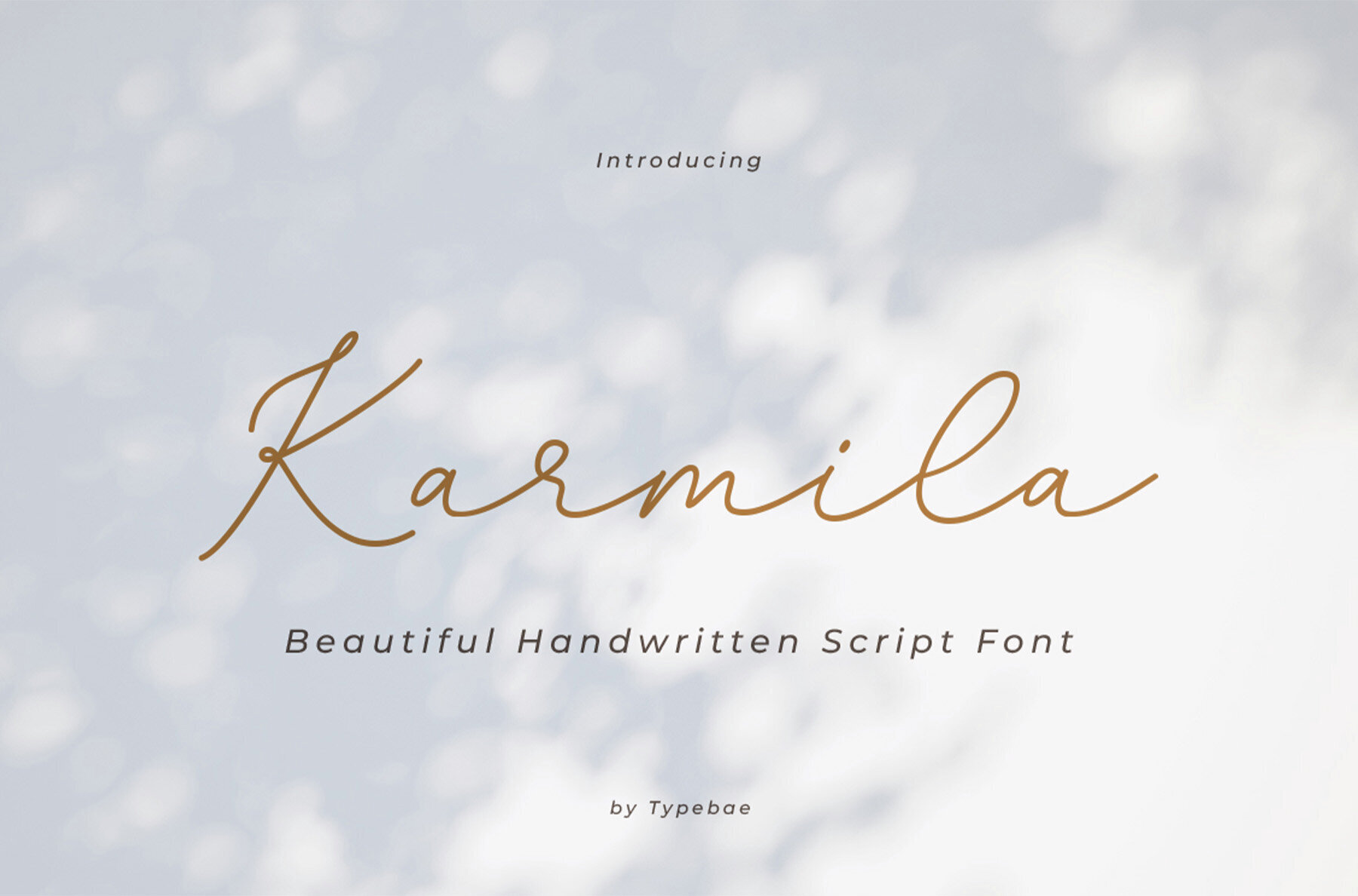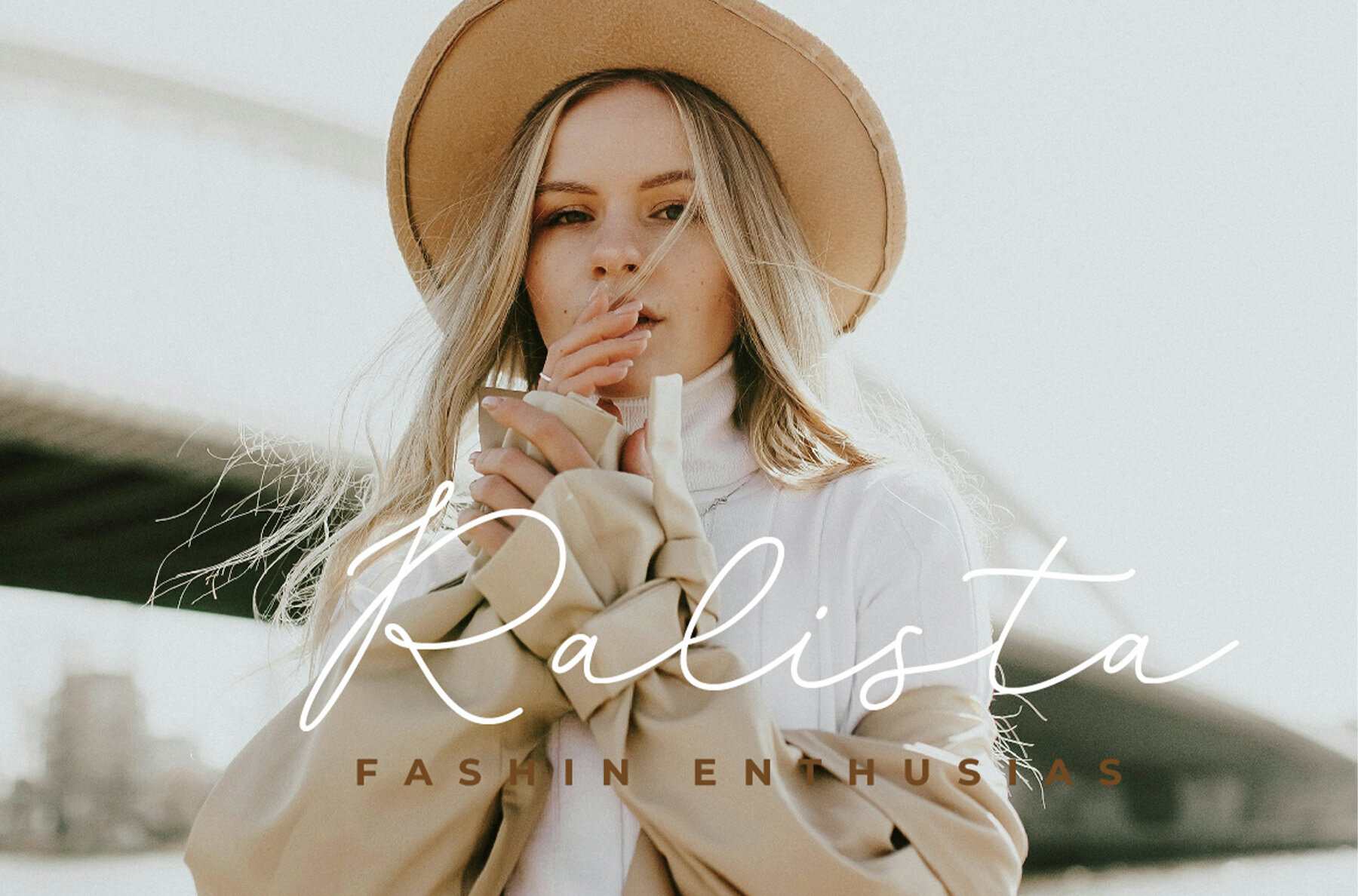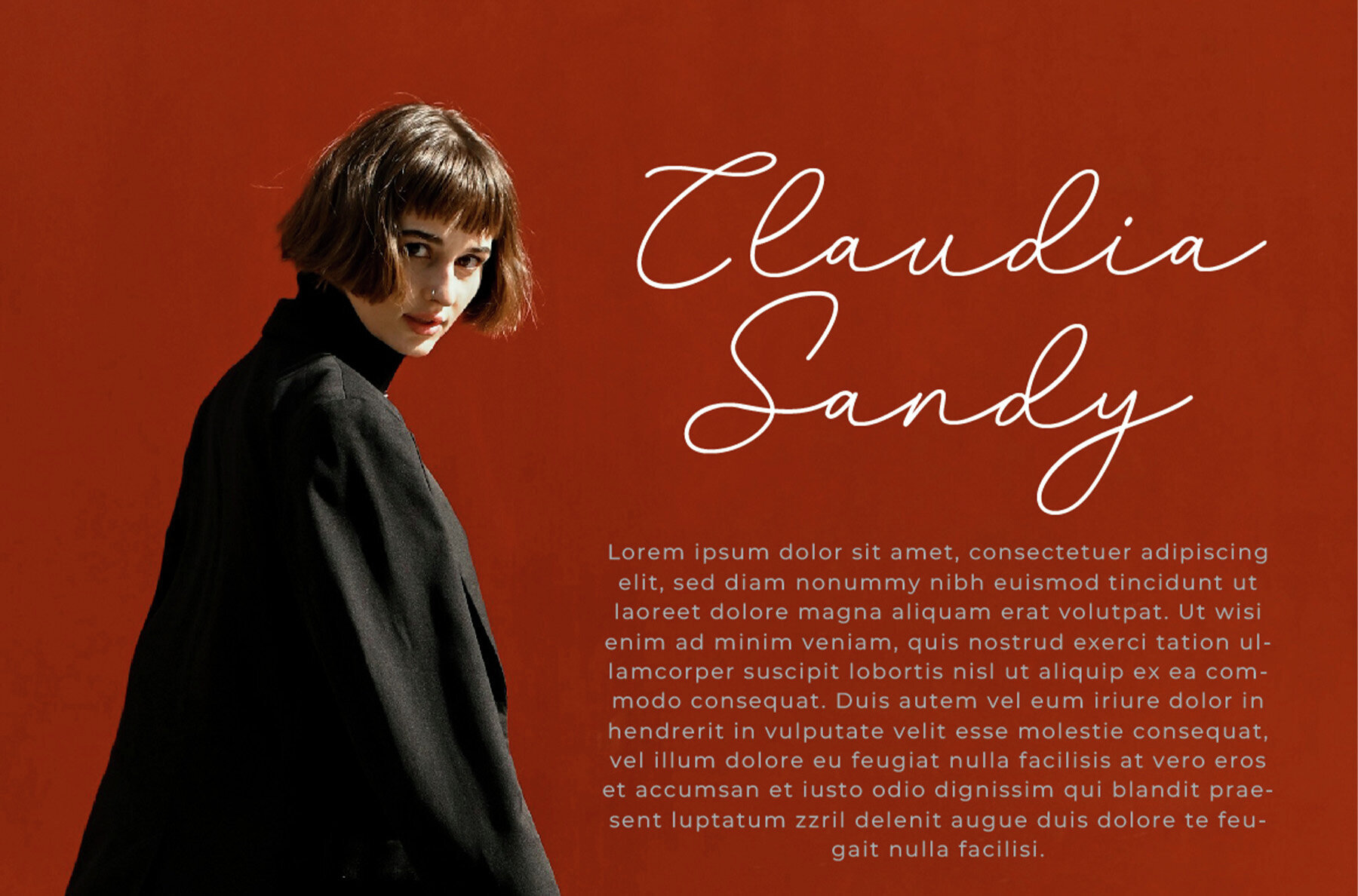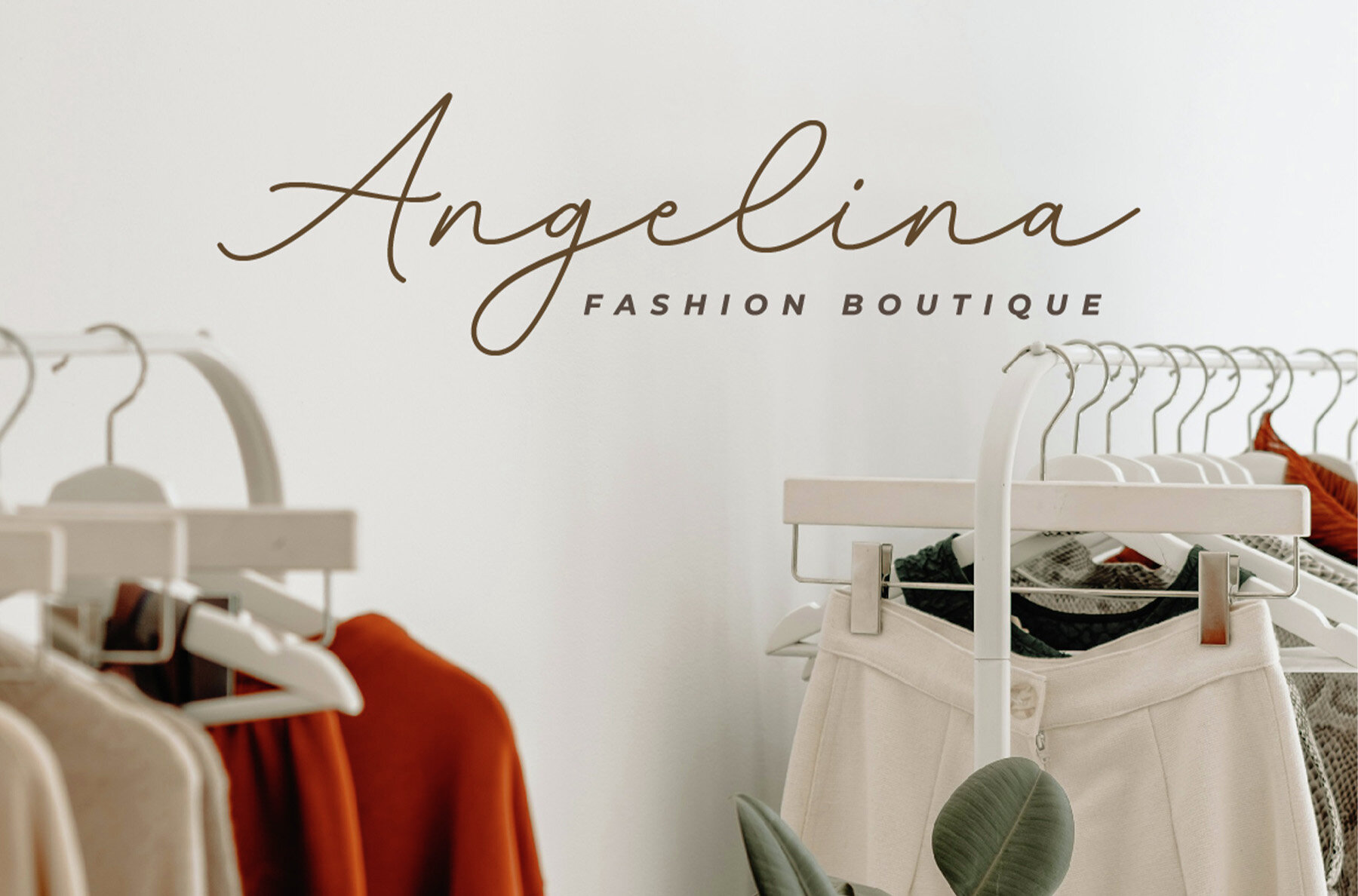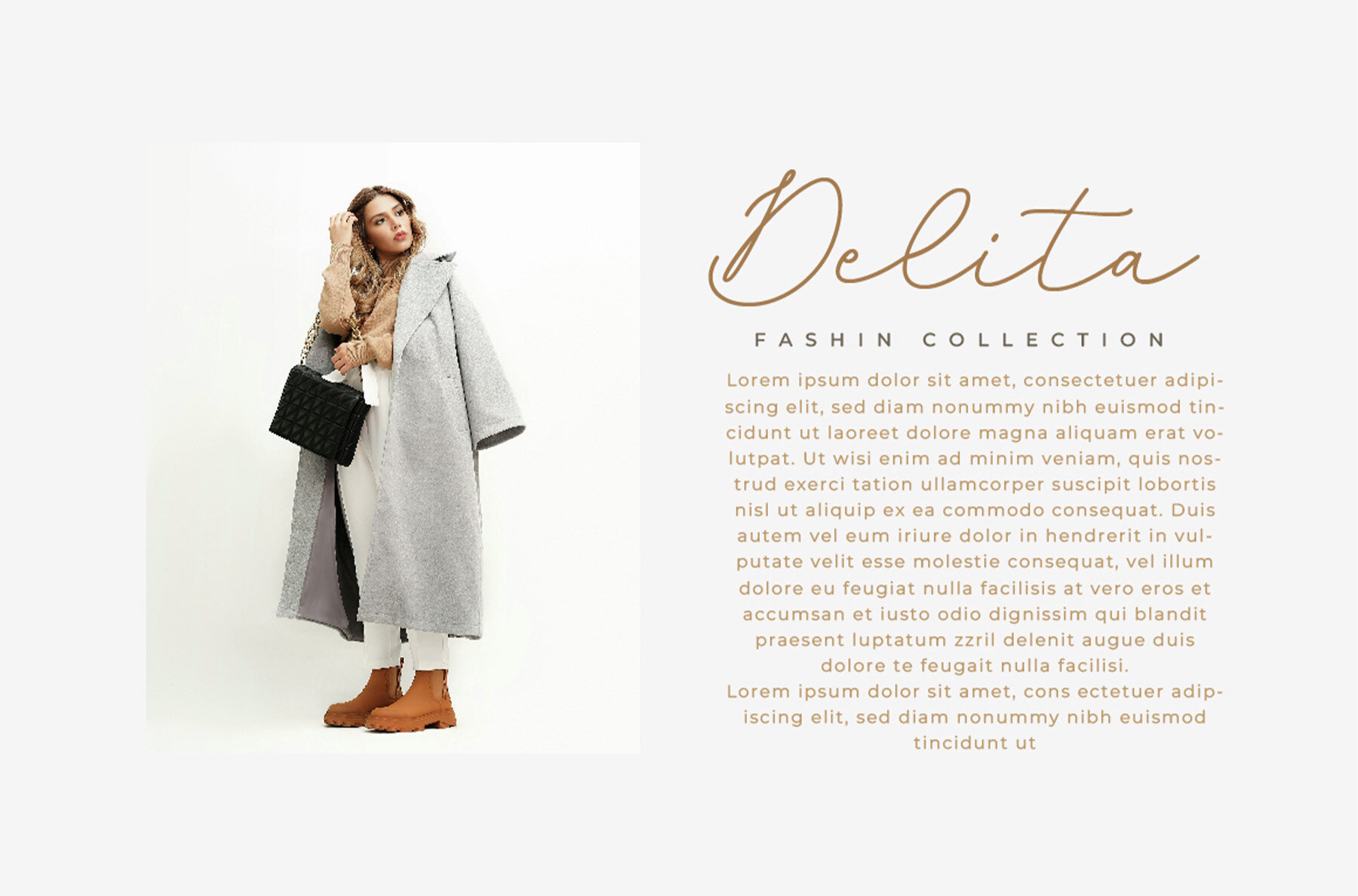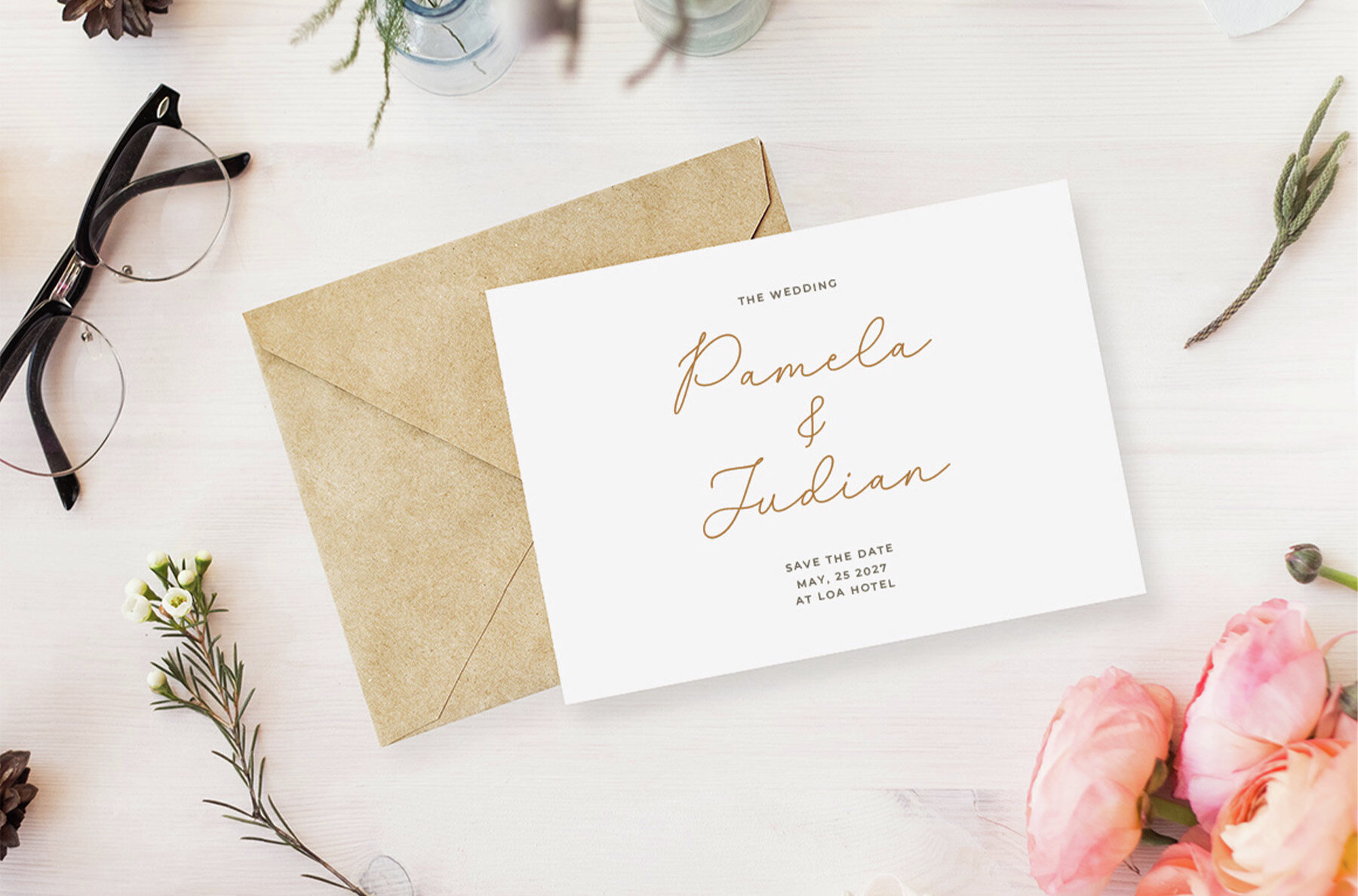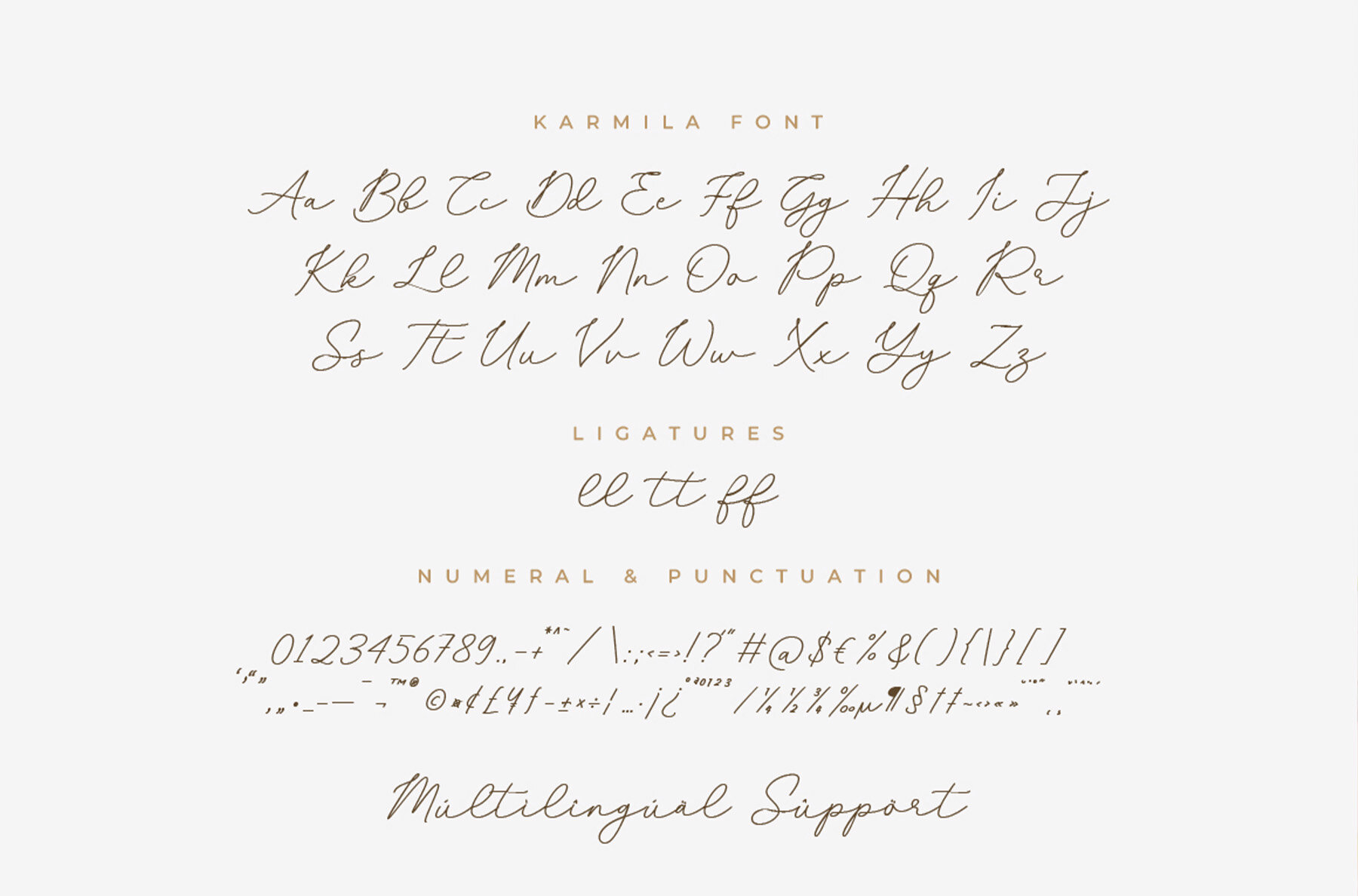
Karmila Font
Karmila
Karmila is a beautifully charming typeface that breathes sophistication into any design. Its elegant and flowing lines make it an ideal choice for projects demanding a touch of refinement.Karmila: Graceful Typeface with Flowing Lines